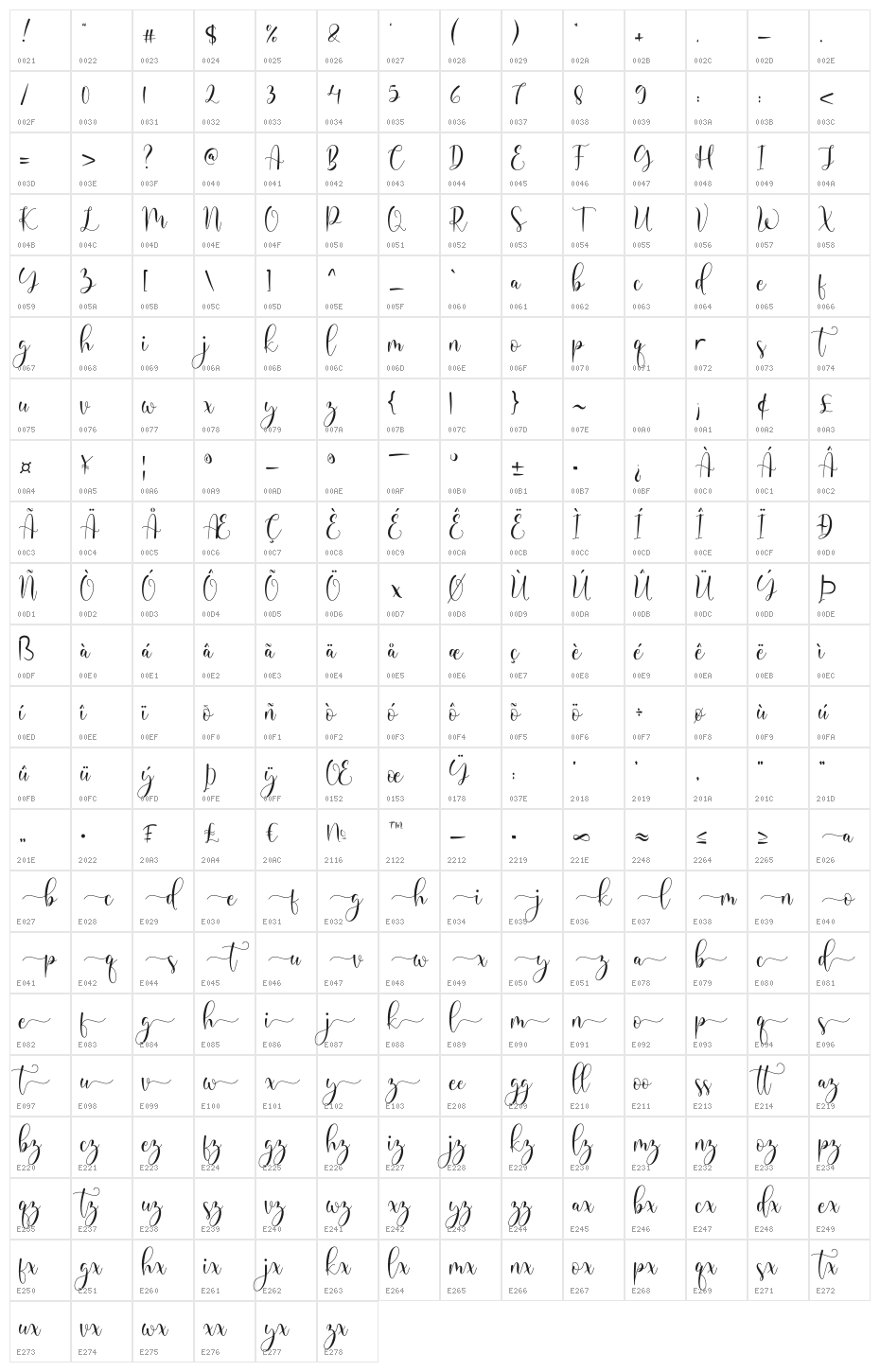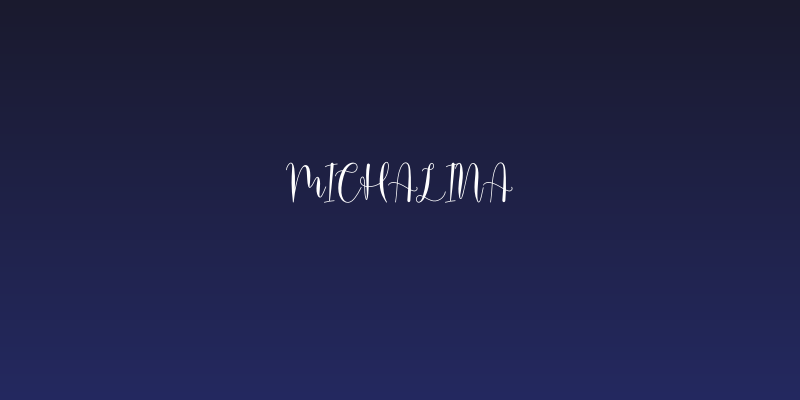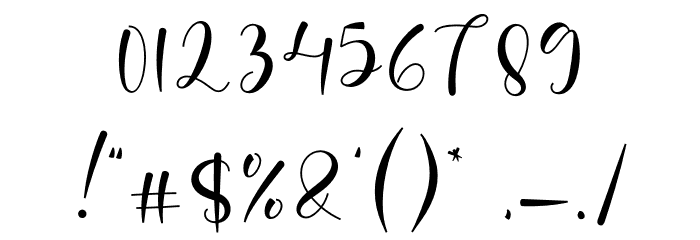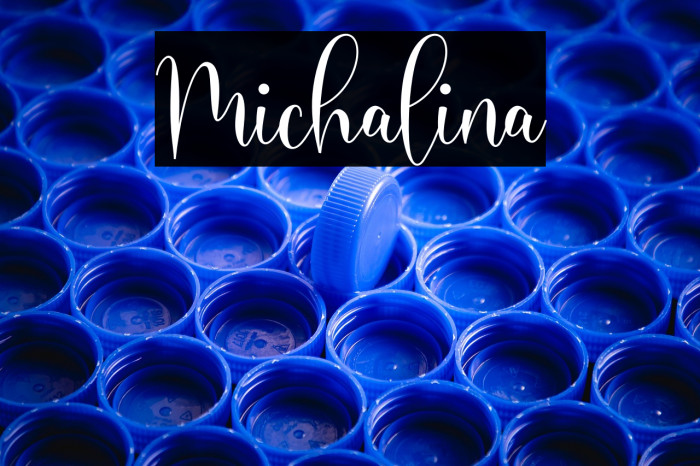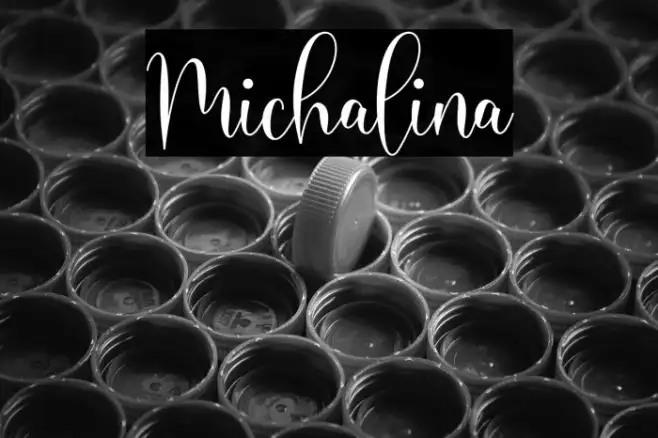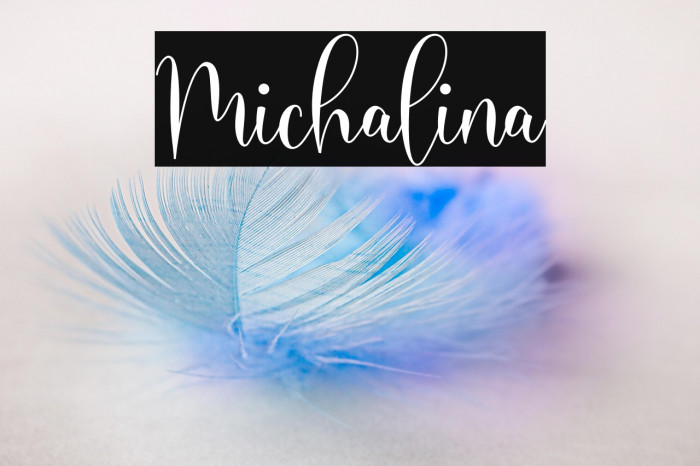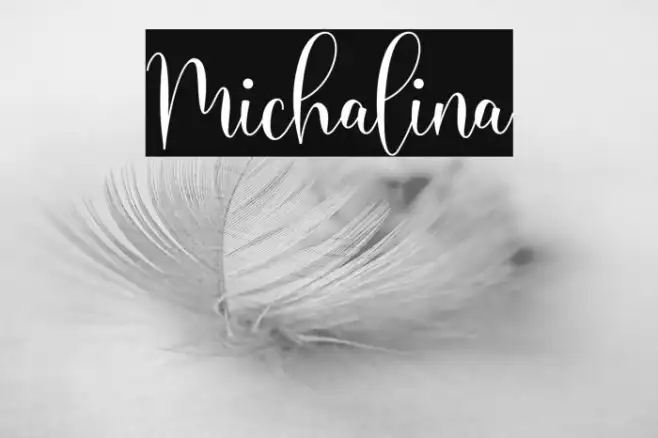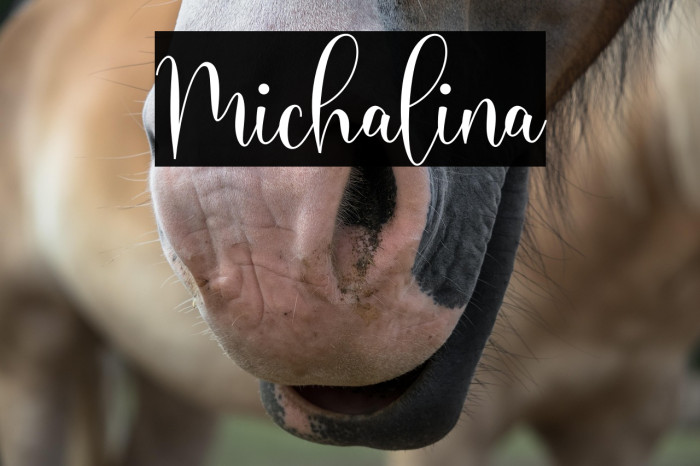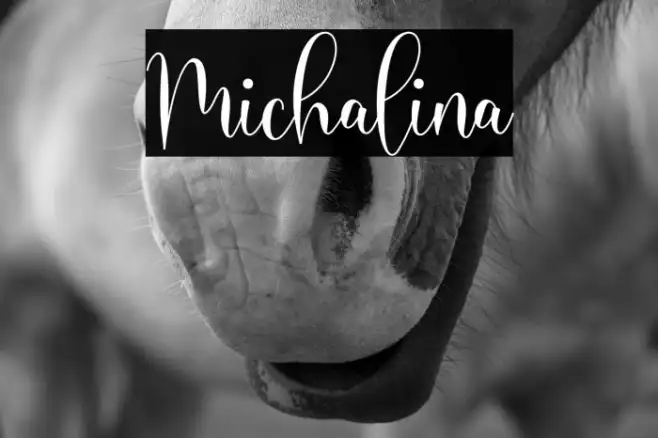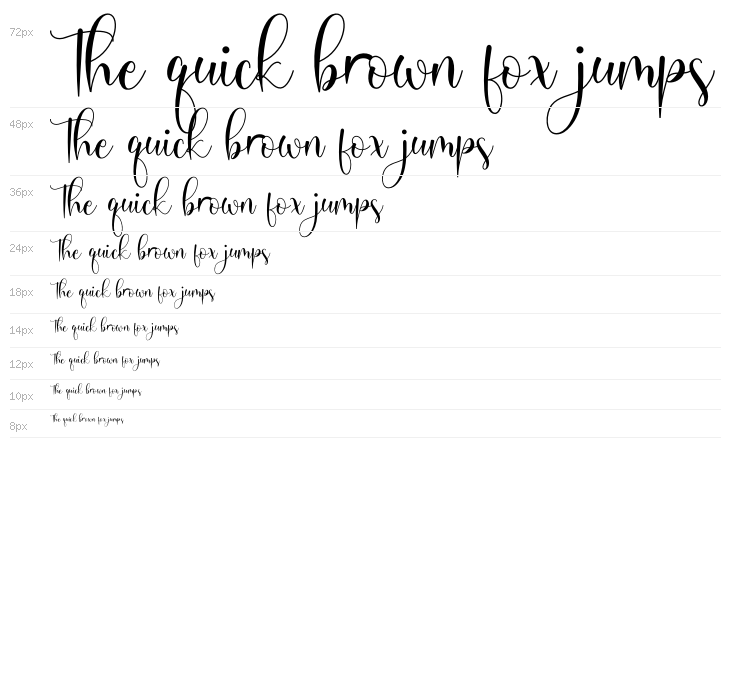
Michalina Font
Michalina Description
This font exhibits a flowing, cursive style with elegant loops and flourishes, giving it a sophisticated and artistic appearance. The uppercase letters are tall and graceful, with sweeping curves that add a sense of movement. The lowercase letters are equally ornate, featuring intricate connections between characters that enhance its script-like quality. Numbers and special characters maintain the same decorative flair, ensuring consistency across all glyphs. The overall design is reminiscent of hand-lettered calligraphy, making it suitable for projects that require a touch of elegance and personalization.